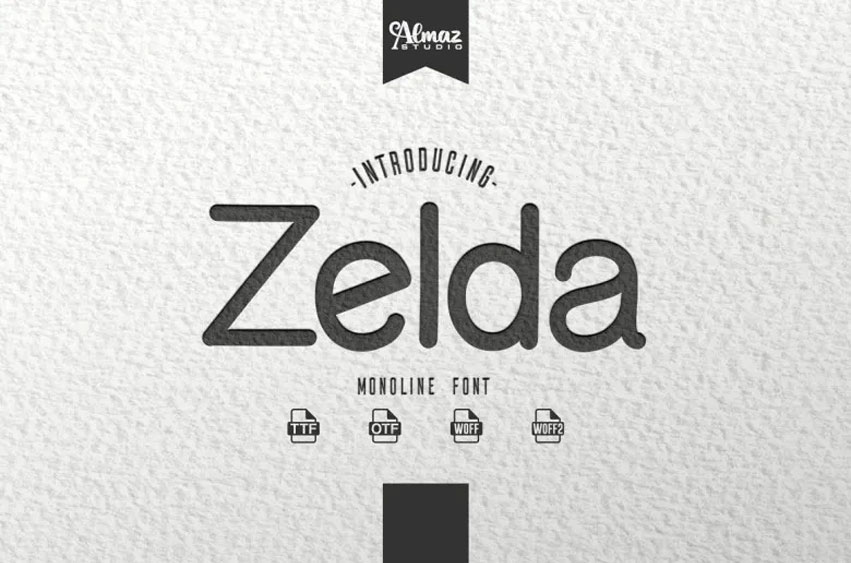
Zelda Monoline Font
Zelda Monoline Font is an exquisitely distinctive sans serif font that blends perfect readability with modernist lettering. Available as regular italic, bold italic, and bold variants; Zelda was originally hand-drawn before moving onto computer-generated graphics for production purposes. There are various versions.
Zelda sleek straight lines with sharp edges are an invaluable asset, when installed on your computer, for creating posters and game graphics, web graphics T-shirts videos logos signs and much more.
Furthermore, the various weights make Zelda an excellent choice for branding purposes as well as web usage; its stunning condensed spacing adds visual interest as well.